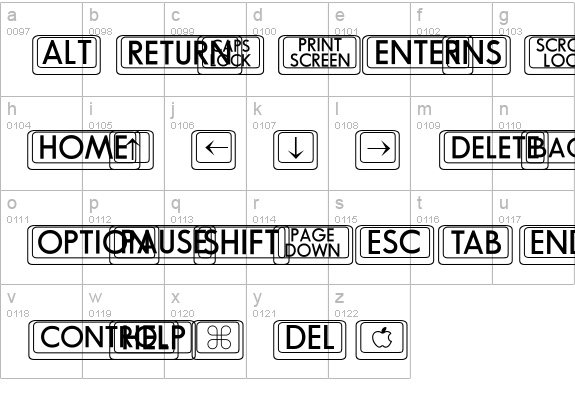
BKCap Regular is the standard, neutral variant in the BKCap typeface family \xE2\x80\x94 well suited to general body text, paragraphs, and standard typographic work.
BKCap Regular is a versatile and modern font that exudes sophistication and elegance. With its clean lines and balanced proportions, this typeface is perfect for a wide range of design projects, from branding to editorial design. The versatility of BKCap Regular allows it to be used in various contexts, making it a great choice for both print and digital applications. What sets BKCap Regular apart is not only its aesthetic appeal but also the fact that it is available for free download at FontsMarket.com. This means that designers and creatives alike can access this high-quality font without any cost, making it a valuable addition to their font library. Whether you're working on a logo, website design, poster, or any other creative project, BKCap Regular is sure to elevate your design with its timeless and elegant appearance. Download this font for free today and see how it can enhance your next project.